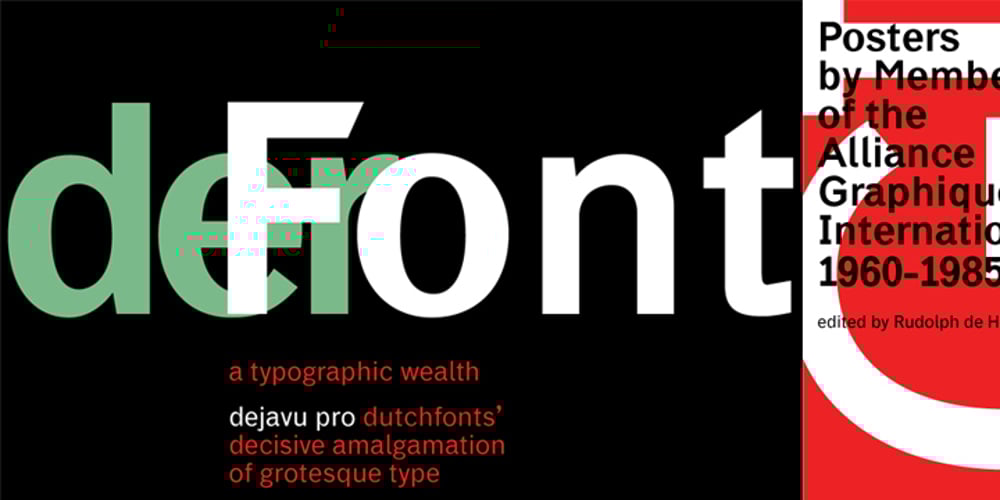
DF Dejavu Pro Font Family was designed by Ko Sliggers and published by Dutchfonts. DF Dejavu Pro contains 10 styles and family package options. This font is an orphanage where all the beautiful details of classical grotesque typefaces from the early twentieth century are gathered, and thus living together, are forming a ‘new’, happy family. The aim was to collect my favorite characters in one font. The start was an eclectic collection orientated on British types from the Caslon Doric No. 4, the Monotype Grotesque, the Gill, the Franklin Gothic up to the Transport. In this amalgamation I avoided the narrow apertures in the ‘e’, ‘c’ and in the numerals ‘5’, ‘6’ and ‘9’ and enlarged the x-height dramatically. To the classical slanted form of the italics I added real italic forms for ‘a’, ‘e’ and ‘g’ in order to obtain a more distinguished italic style. DF-Dejavu Pro supports all Latin-based languages (Western, Central-European, Eastern-European, Baltic and Turkish) and includes small capitals, ligatures, inferior & superior numerals and letters, fractions, various numeral styles: proportional lining, tabular lining, proportional old-style, tabular old-style and last but not least a slashed zero.